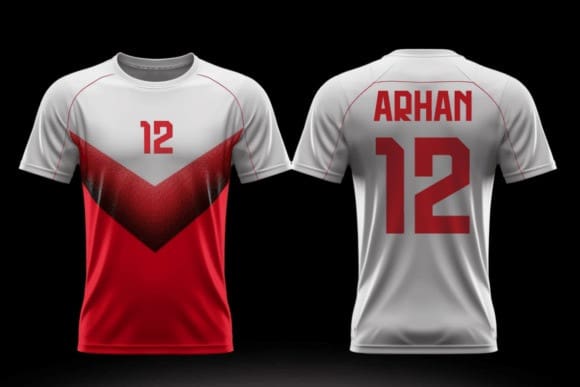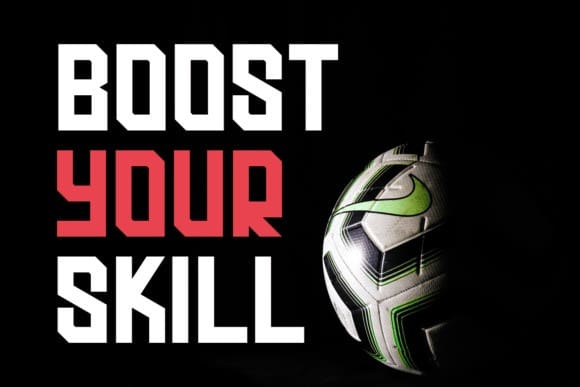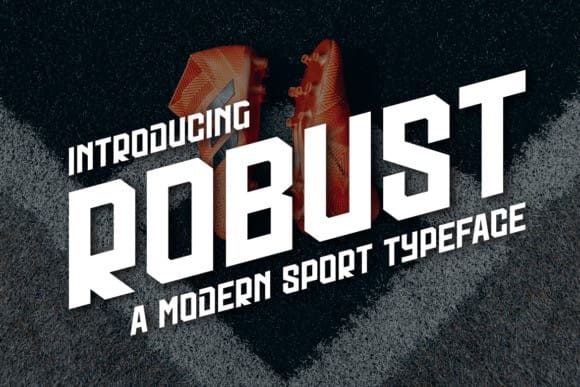
Robust Font
Robust Font – Modern Font is a bold and authentic display font. The font is suitable for any branding project like logo, template design, esport, and many more. outstanding in a wide range of contexts.